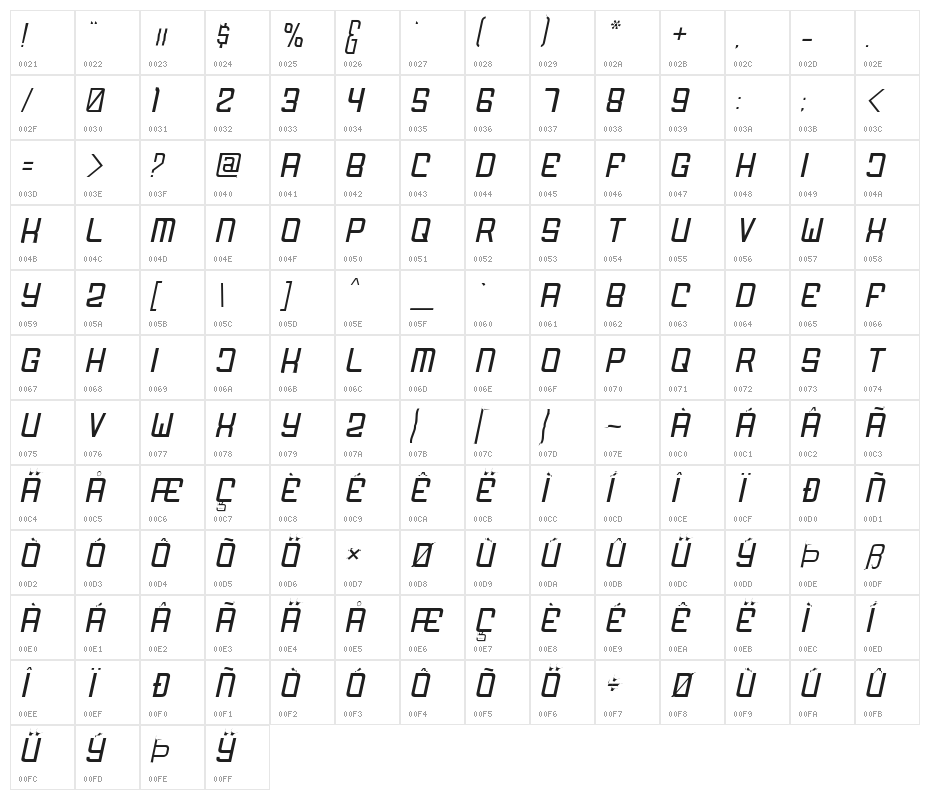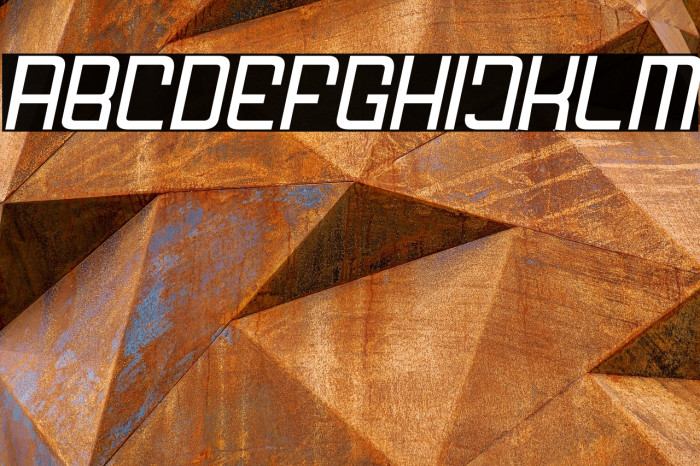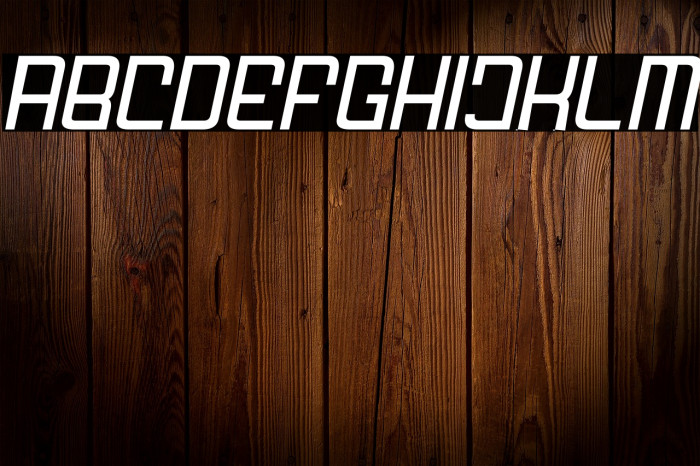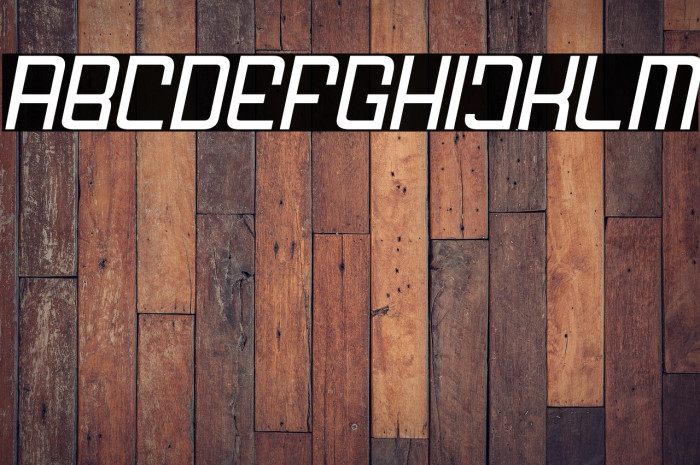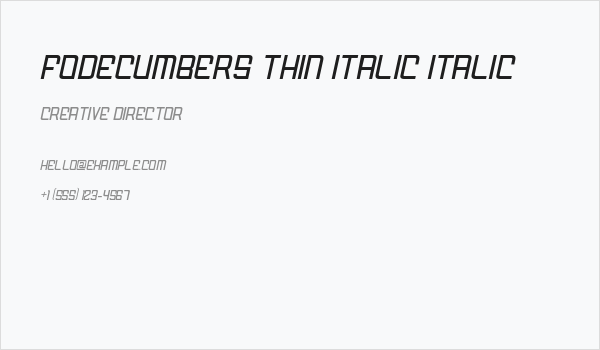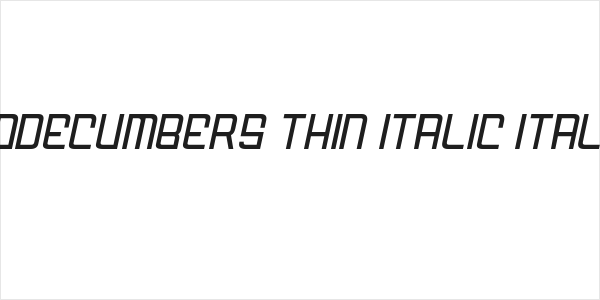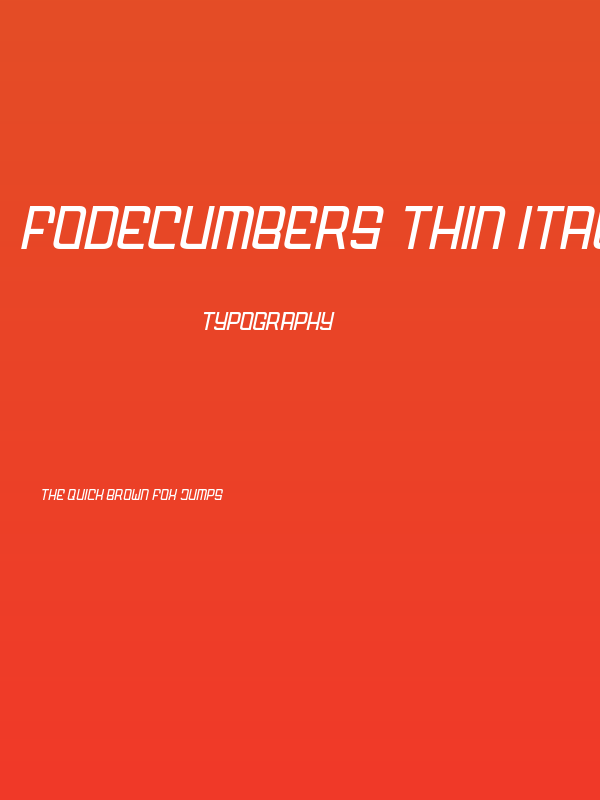
FODECUMBERS THIN ITALIC Italic Font
FODECUMBERS THIN ITALIC Italic Description
This font features a sleek, italicized design with a modern and futuristic appeal. The characters are elongated and slightly condensed, giving a streamlined and dynamic look. The strokes are consistent in thickness, providing a uniform appearance across all characters. The uppercase and lowercase letters maintain a cohesive style, with sharp angles and clean lines. The numerals and special characters follow the same aesthetic, ensuring versatility and readability. This font is ideal for projects that require a contemporary and stylish touch.
| Use Case | Headlines, Logos, Digital Media |
| Proposed Projects | Ideal for branding, advertising, and digital media projects that require a modern and dynamic look. |